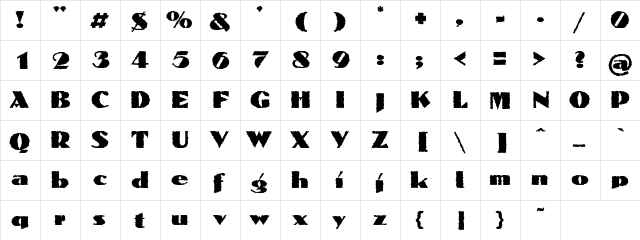
Grunge Domain Normal Regular
Design Context for Grunge Domain Normal Typeface
Grunge Domain Normal trades polish for personality, using distressed and eroded forms to bring grit and attitude to creative work.
Suited to punk-influenced zines, underground music branding, streetwear, and raw, anti-corporate design.
Pro Tip: Pair Grunge Domain Normal with intentionally raw or lo-fi design elements. Fighting against it with overly polished surroundings will undermine its personality.